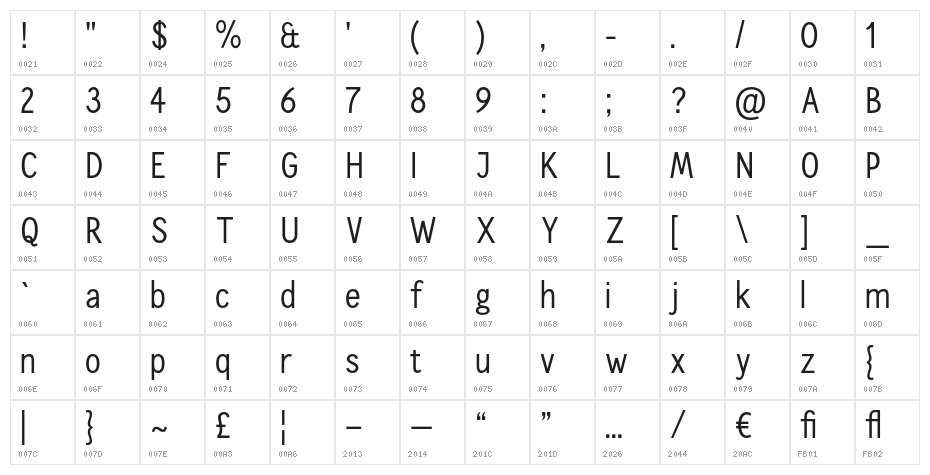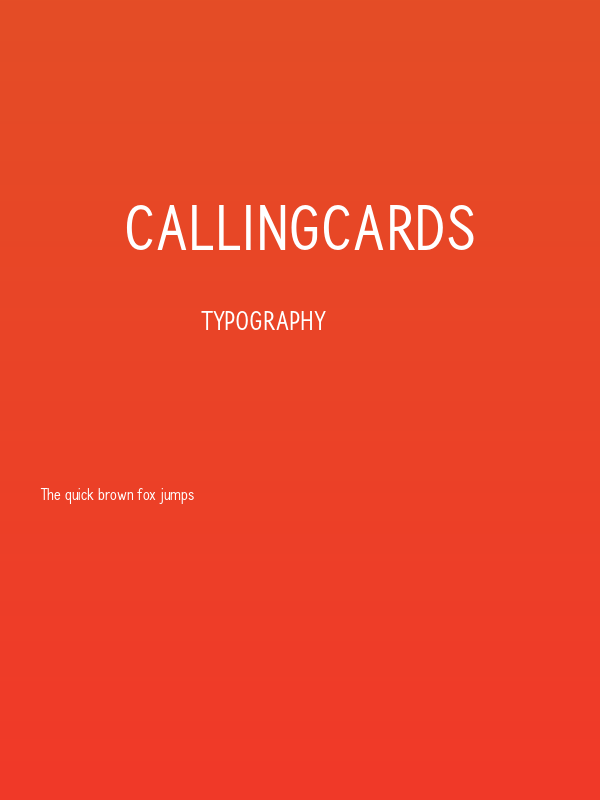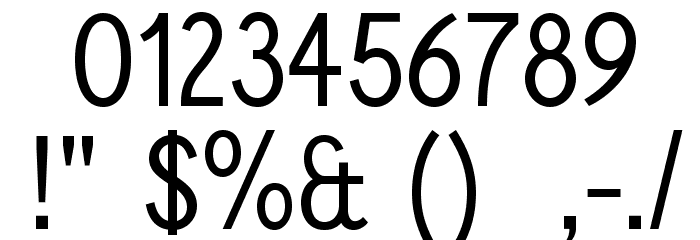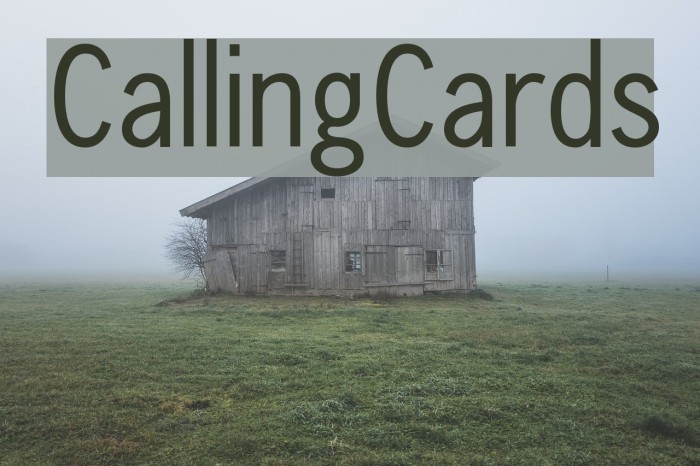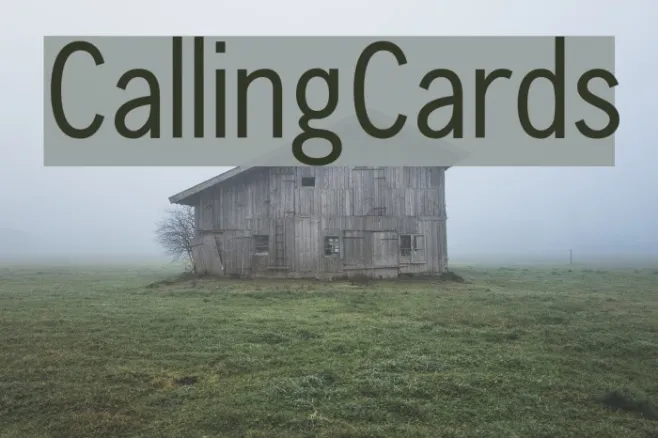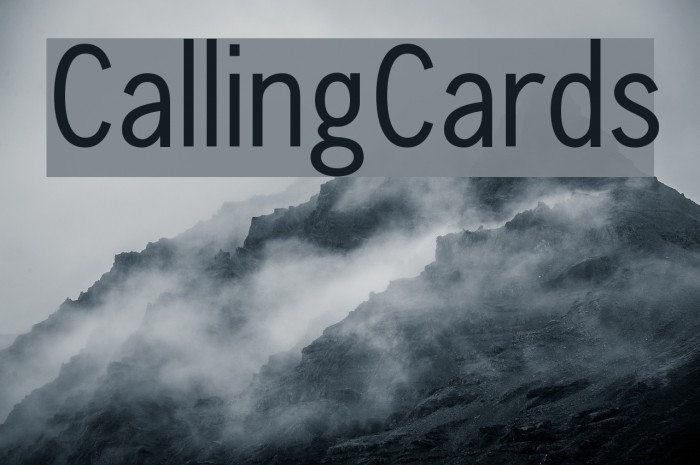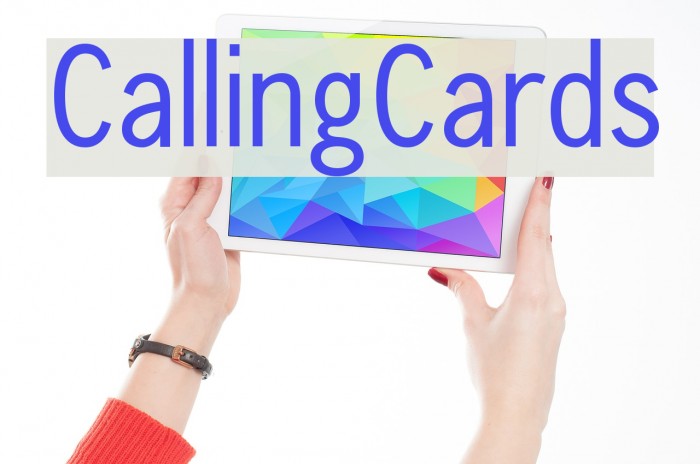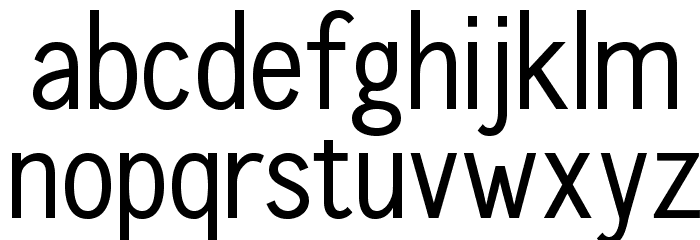
CallingCards Font
CallingCards Description
This font is a clean and modern sans-serif typeface characterized by its simplicity and readability. The letters are evenly spaced with a consistent stroke width, providing a balanced and harmonious appearance. The uppercase and lowercase letters are well-proportioned, making it suitable for a variety of applications. The numerals are clear and distinct, ensuring legibility in both digital and print formats. The special characters are designed to complement the overall style, maintaining the font's cohesive look. Its straightforward design makes it versatile for both formal and informal settings.
| Proposed Projects | Ideal for corporate branding, web design, user interfaces, and print media where clarity and modernity are essential. |